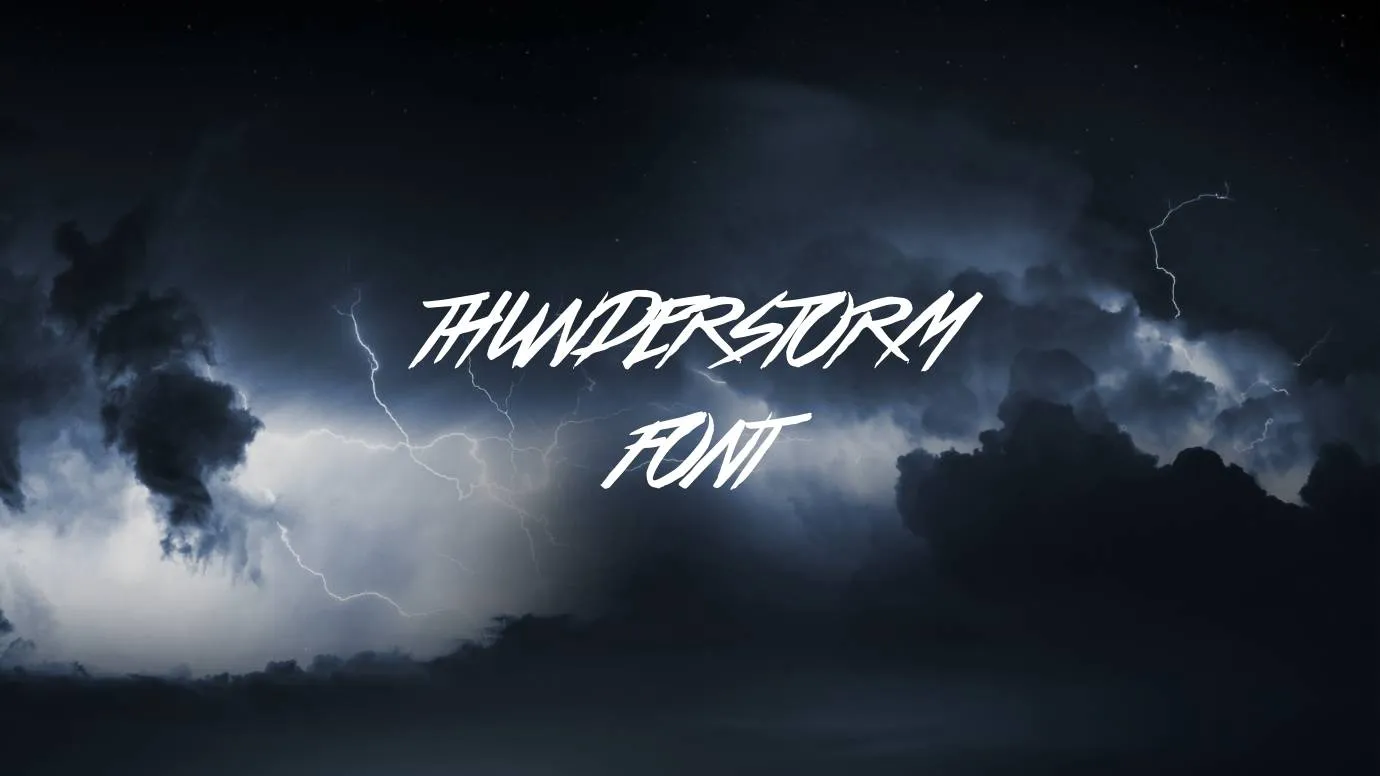
Thunderstorm Font Family is a creation by Aiyar in the early part of 2013. Its design draws inspiration from the music, disco, and pop culture of the 80s and 90s, making it an excellent choice for designing music album covers, book jackets, posters, and fashion apparel.
Aiyar has been taken some help from Juliet Ulyanovsk when he was creating the styling of this typeface. This is also considered for light designs, so it is also known as The Light Font in the font market.